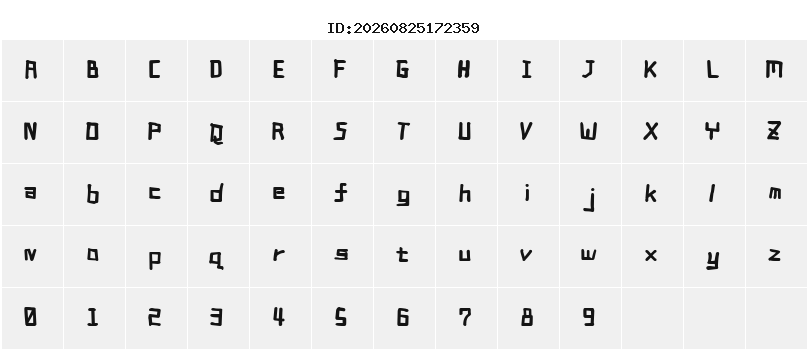
SG sakura Preview
• Font Name: SG sakura
• Font Style: Black
• Full Font Name: SG sakura Black
About SG sakura.ttf
SG sakura.ttf is a modern, elegant sans-serif font designed for ultimate readability and visual harmony. Perfect for branding, headlines, web design, and print materials.